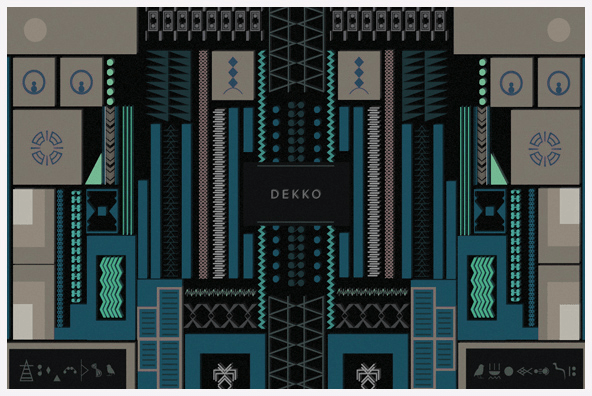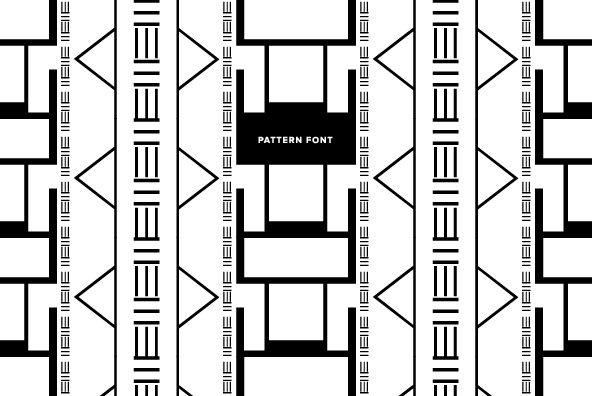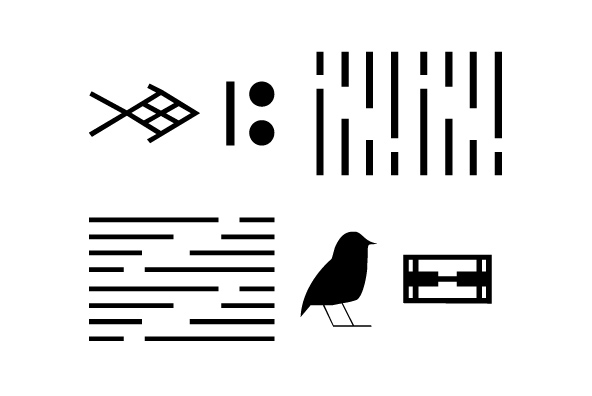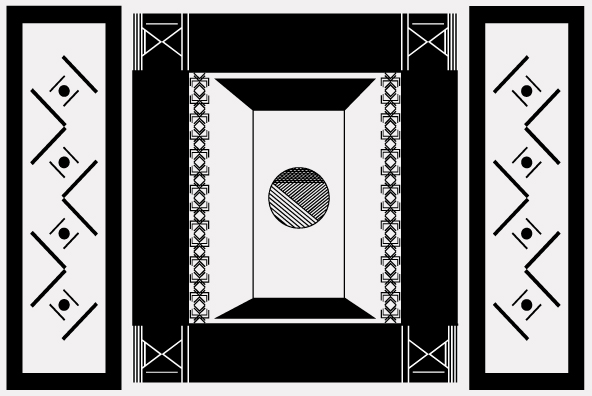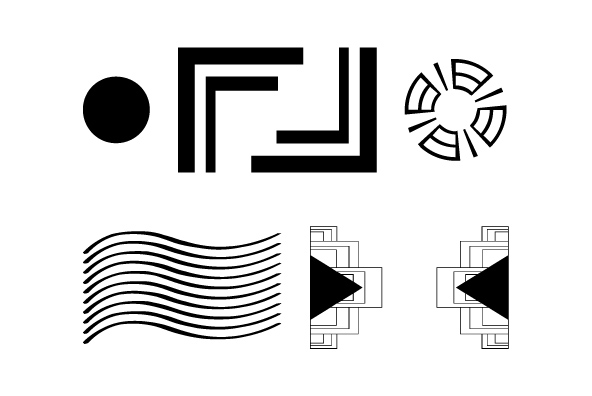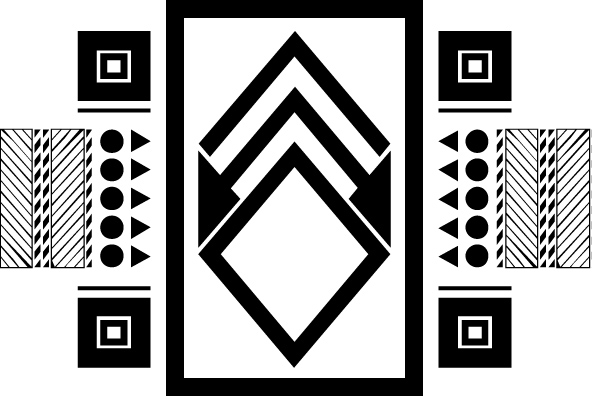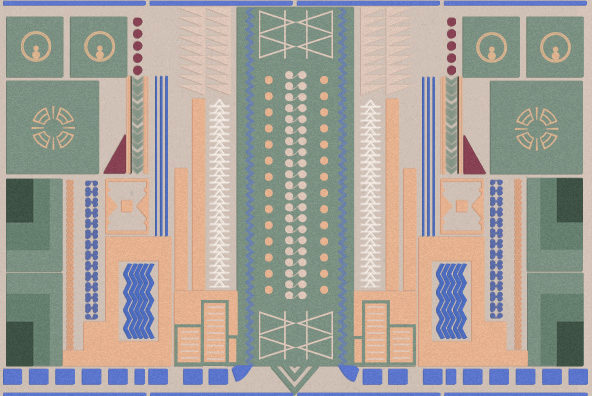
YWFT Dekko
Buy NowYWFT Dekko is an icon, symbol and pattern style dingbat font created with the ability to execute multiple design ideas. The font was designed with tight kerning, allowing the ability on certain letter combos to create intriguing pattern designs. This isn't your typical dingbat design either, YWFT Dekko comes filled with 177 unique glyphs.
For best use, open in Adobe Illustrator with the glyph window open as well. This way you can see all the characters at hand, and type or select the icon/symbol you want. A general method that always returns a good result, is to select 3 characters per line, and loop them for interesting folk-like patterns.